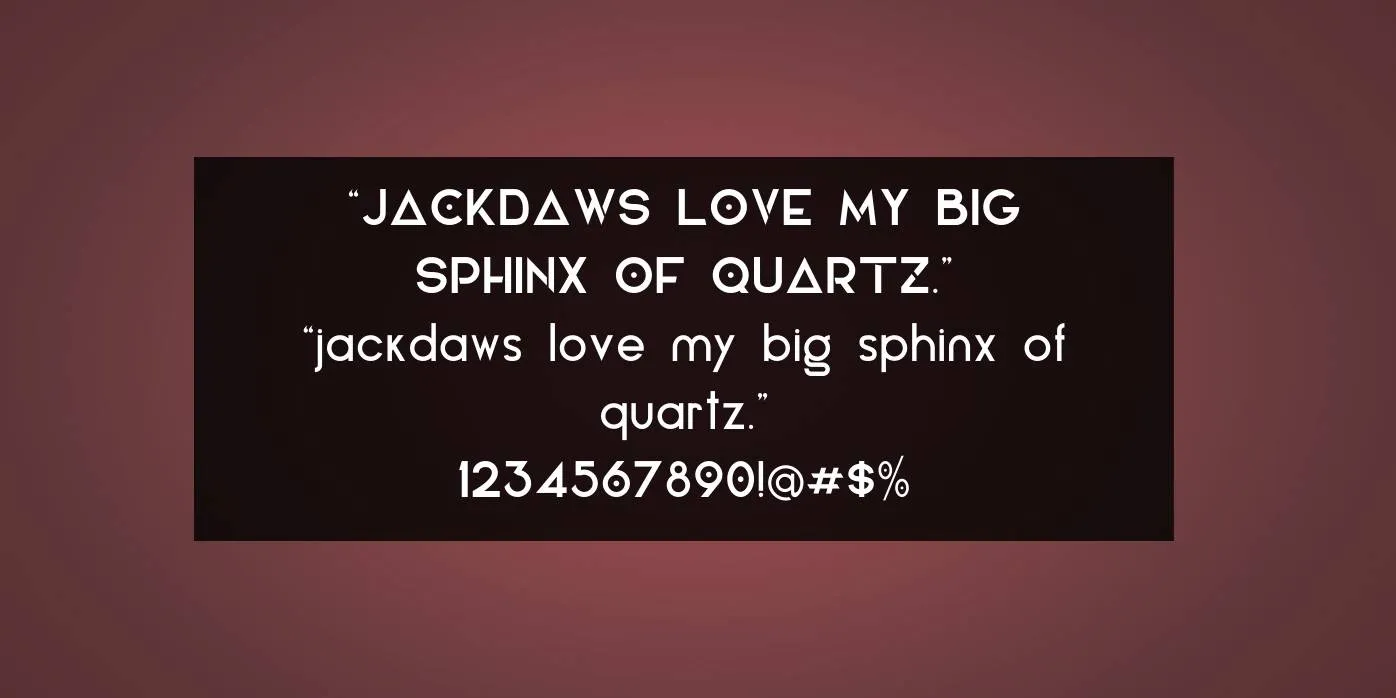
Elianto Font
Here, we are going to present a classy typeface named Elianto Font. Mr. Emanuele Papale is the designer of this typeface. This font family belongs to the sans serif typeface.
Its copy and paste function is suitable for text designs. This geometric sans-serif typeface has a unique and stylish texture. You can use uni neue font which has the same style and characters as this one. Also, it contains 48 different styles.
You can use this versatile font family for various purposes. For instance, you can use it for personal and commercial projects. This humanist sans-serif typeface features an elegant look. It is best suited for display purposes.